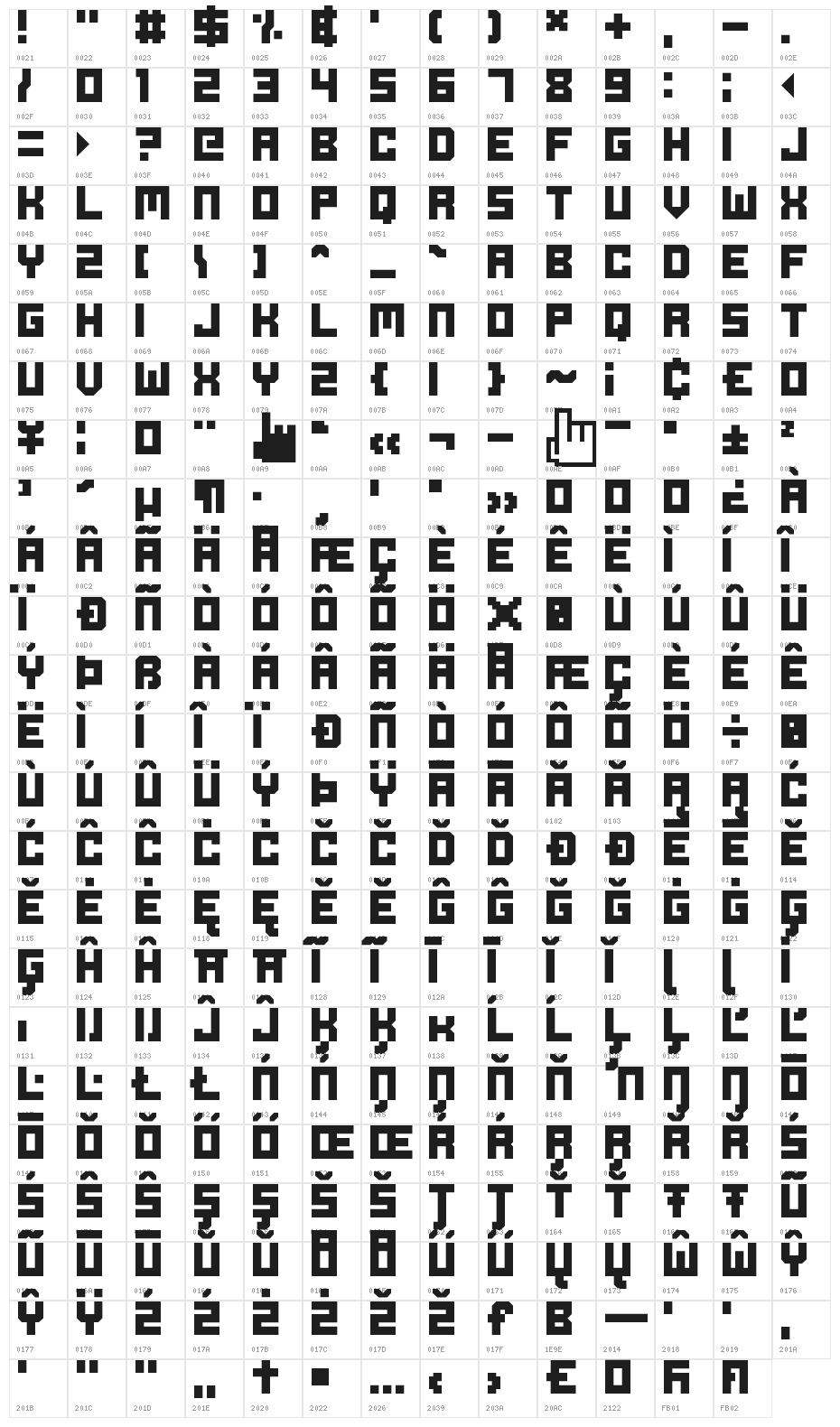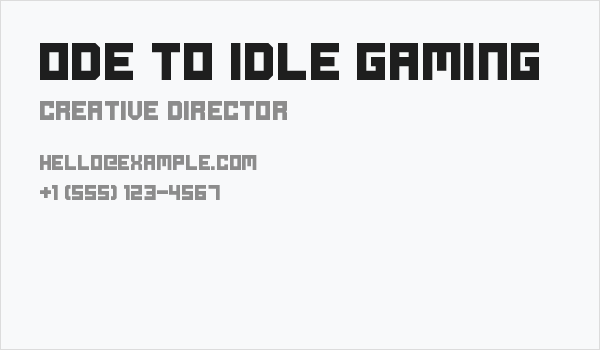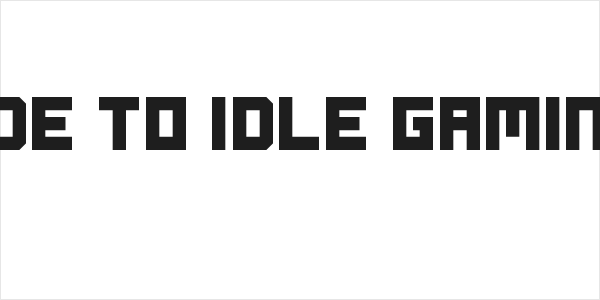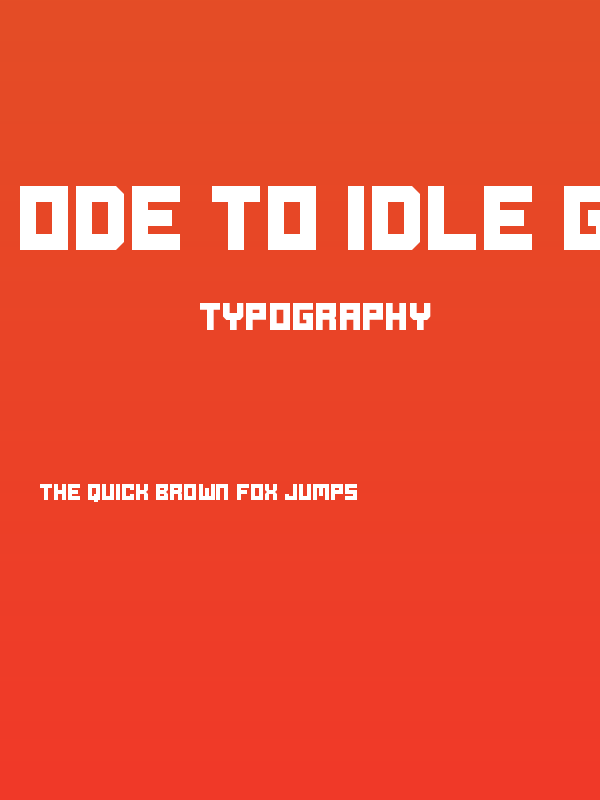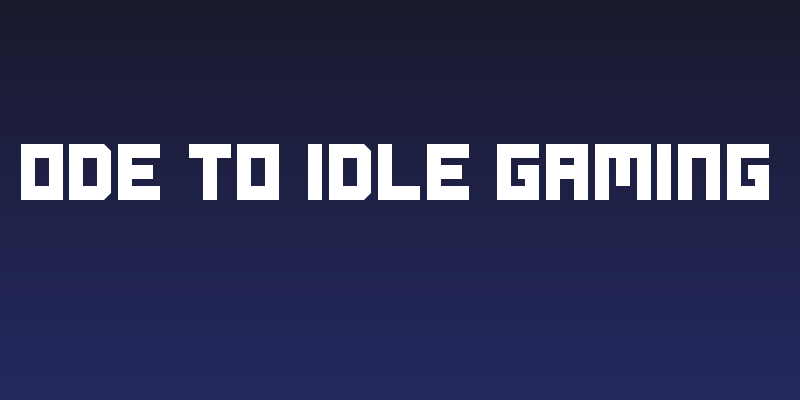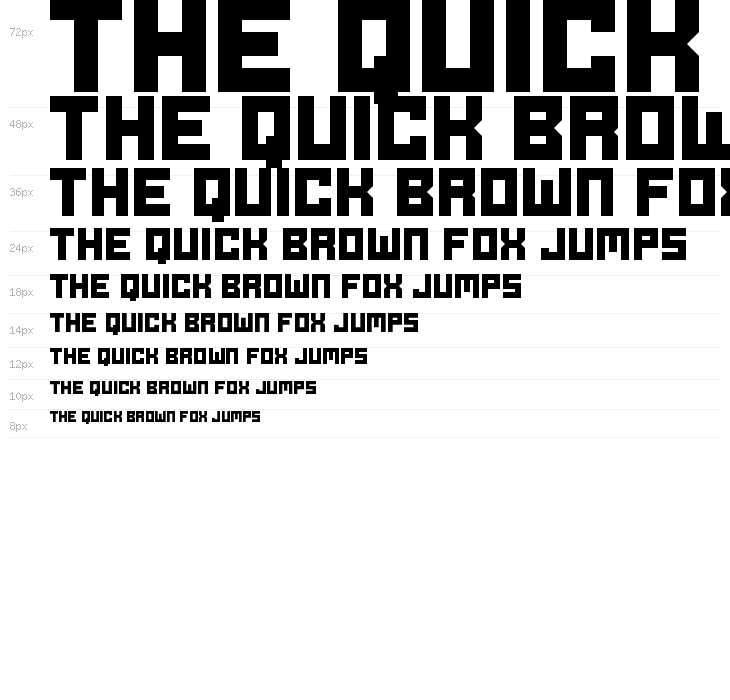
Ode to Idle Gaming Font
Ode to Idle Gaming Description
This font features a bold, blocky design with a distinctly geometric style. The characters are uniformly thick, giving it a strong and impactful appearance. The edges are sharp and angular, contributing to a modern and digital aesthetic. The uppercase and lowercase letters maintain a consistent height, enhancing the uniformity of the typeface. Numbers and special characters follow the same design principles, ensuring a cohesive look across all glyphs. This font is ideal for projects that require a bold statement or a futuristic feel.
| Proposed Projects | Ideal for video game titles, tech branding, posters, and digital media. |